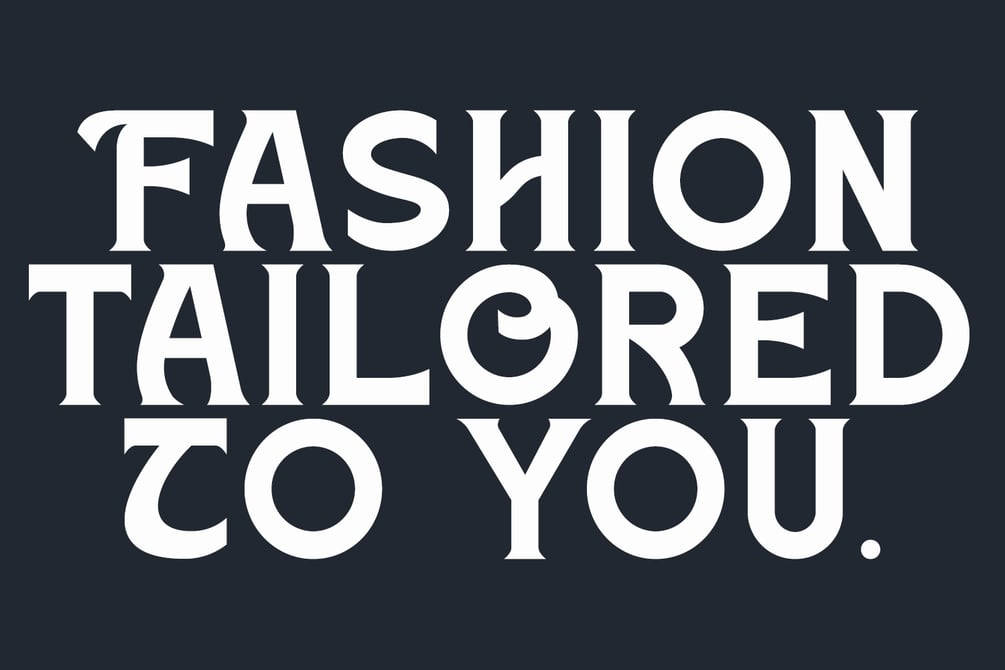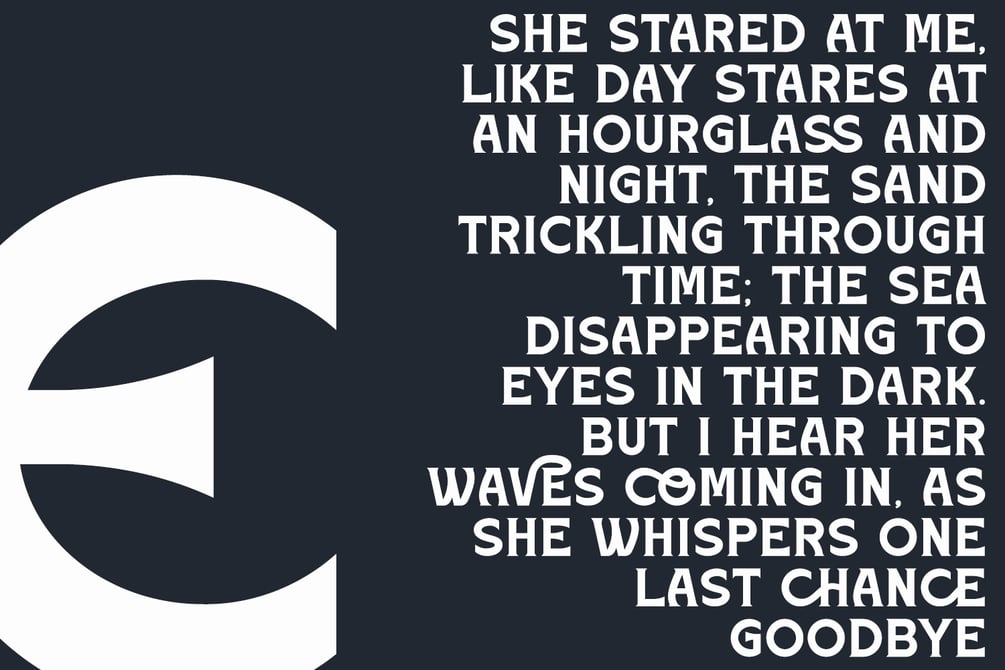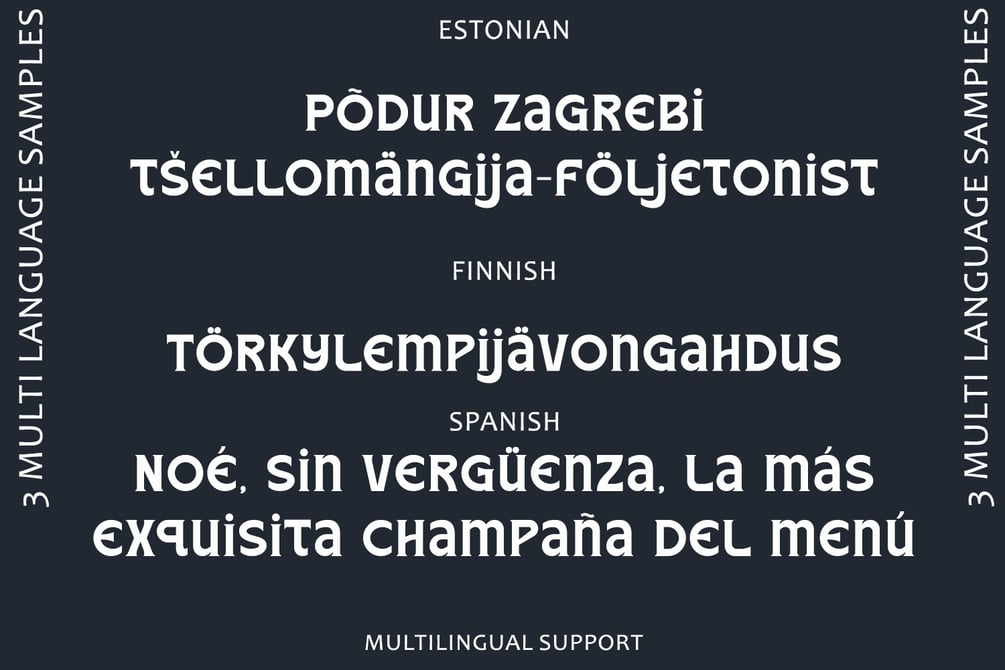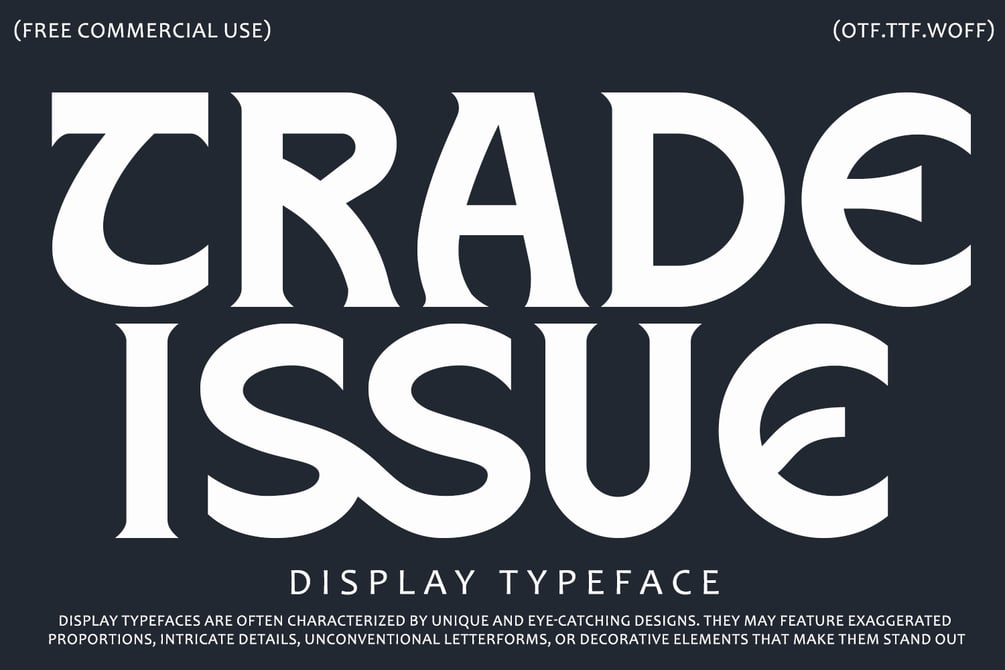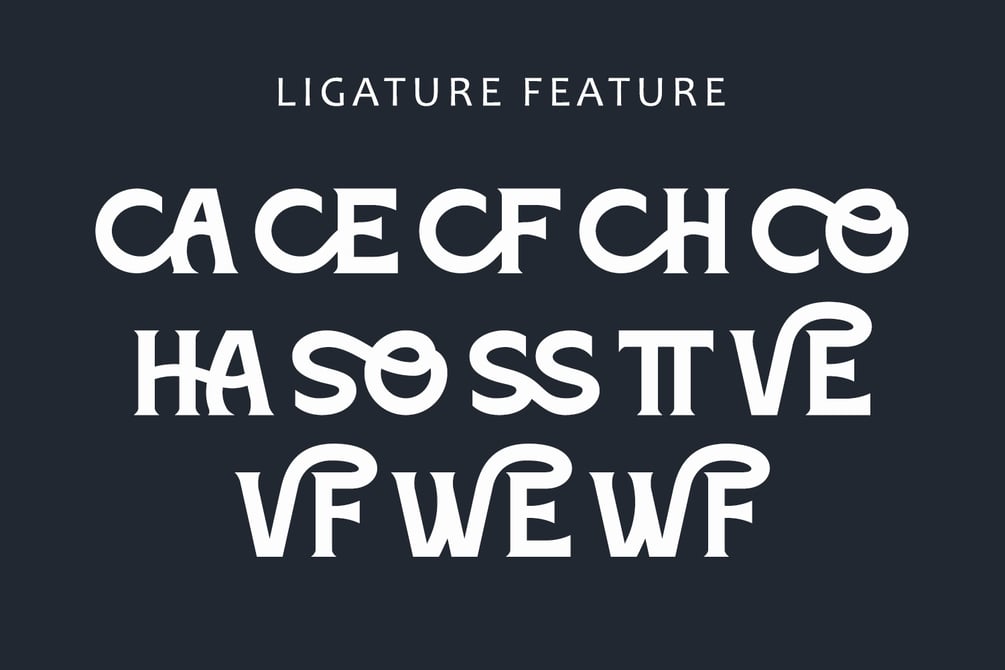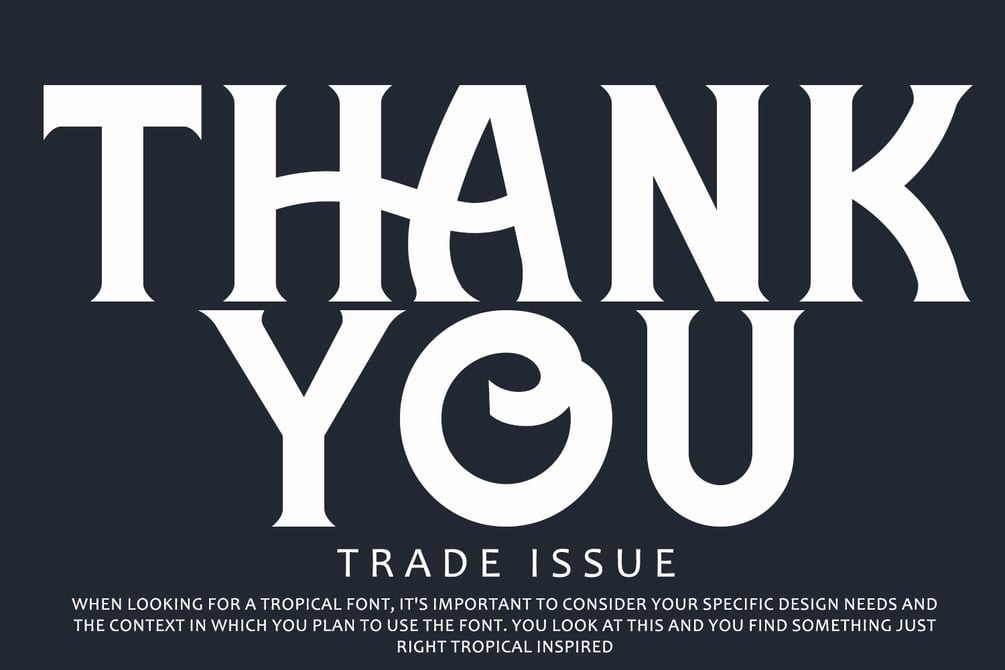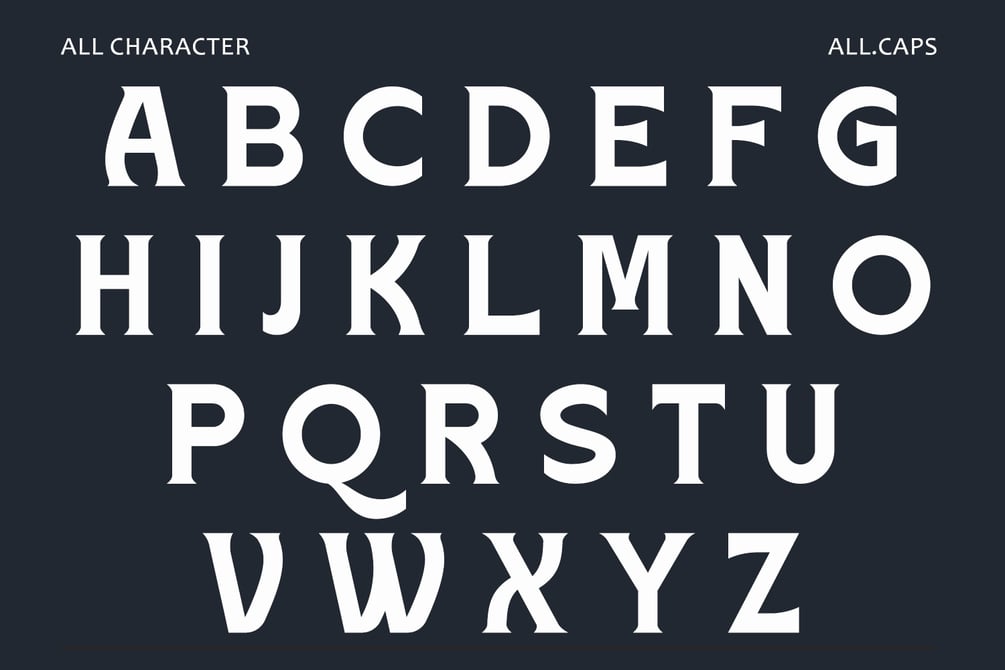
Trade Issue Font
Trade Issue display typeface is a font designed with the specific purpose of commanding attention and making a strong visual impact in various design contexts. Here's an explanation of its key features:
1. Bold and Striking Design:"Trade Issue" typeface features bold and striking letterforms that are designed to stand out. With strong lines and distinctive shapes, it grabs the viewer's attention and makes a powerful statement.
2. High Contrast: This typeface may exhibit high contrast between thick and thin strokes, adding drama and elegance to its appearance. This contrast contributes to its visual impact and makes it suitable for use in headlines, titles, and other prominent design elements.
3. Distinctive Characteristics: "Trade Issue" may have unique and distinctive characteristics that set it apart from other typefaces. These may include unconventional letterforms, intricate details, or decorative elements that give it a distinct personality and visual appeal.
4. Versatility: Despite its bold design, "Trade Issue" can be versatile enough to be used in a variety of design applications. While it excels in headlines and titles, it may also be suitable for logos, posters, banners, and other graphic design projects where bold typography is desired.
5. Brand Identity: Display typefaces like "Trade Issue" are often used to establish and reinforce a brand's visual identity. When used consistently across different brand materials, they help create a cohesive and memorable brand image that resonates with the target audience.
6. Creative Expression: Designers may choose "Trade Issue" for its creative potential and expressive qualities. It allows them to experiment with typography, play with scale, and create visually captivating designs that effectively communicate their message.
Overall, "Trade Issue" display typeface is a bold and attention-grabbing font that is well-suited for making a statement in various design applications. Its bold design, distinctive characteristics, and versatility make it a valuable tool for designers seeking to create impactful and visually compelling graphic designs.